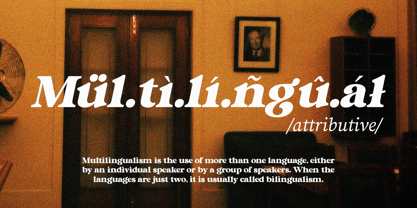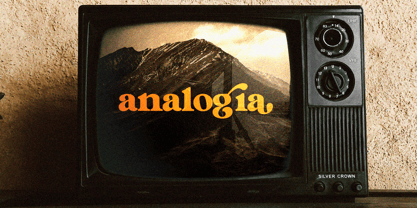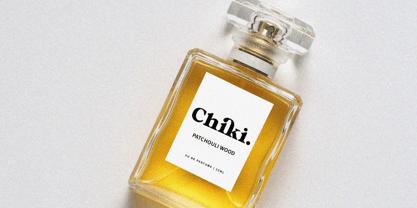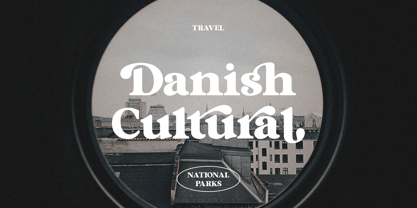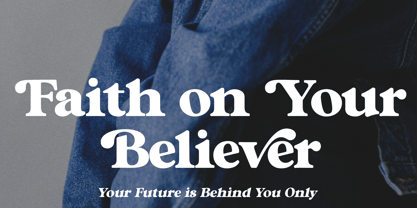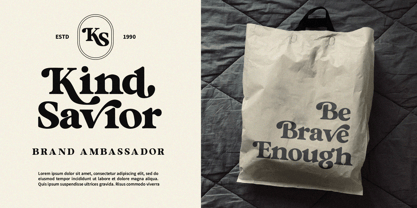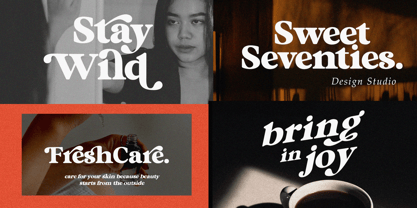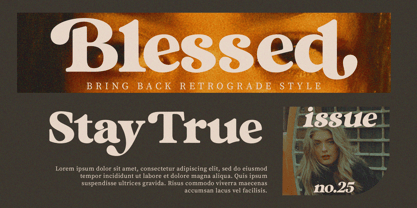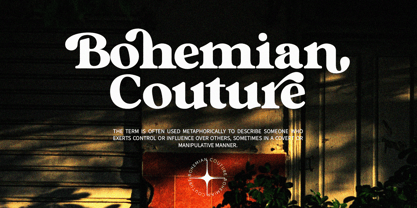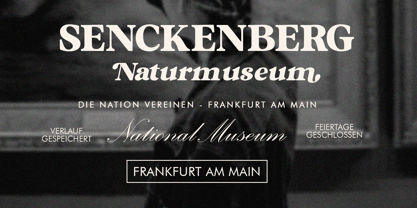
Mugello Serif
by Romie Creative
The Mugello Serif Font Family was designed by Romi Rahmadi and published by Romie Creative. Mugello Serif contains 2 styles and family package options.
Mugello Serif is a stylish font It has both modern and retro look. Comes with alternatives and ligatures, helps to create stunning logos, quotes, posts, blog posts. branding projects, magazine imagery, wedding invitations, and much more.
Features
· All Uppercase and Lowercase
· Alternates and Ligatures